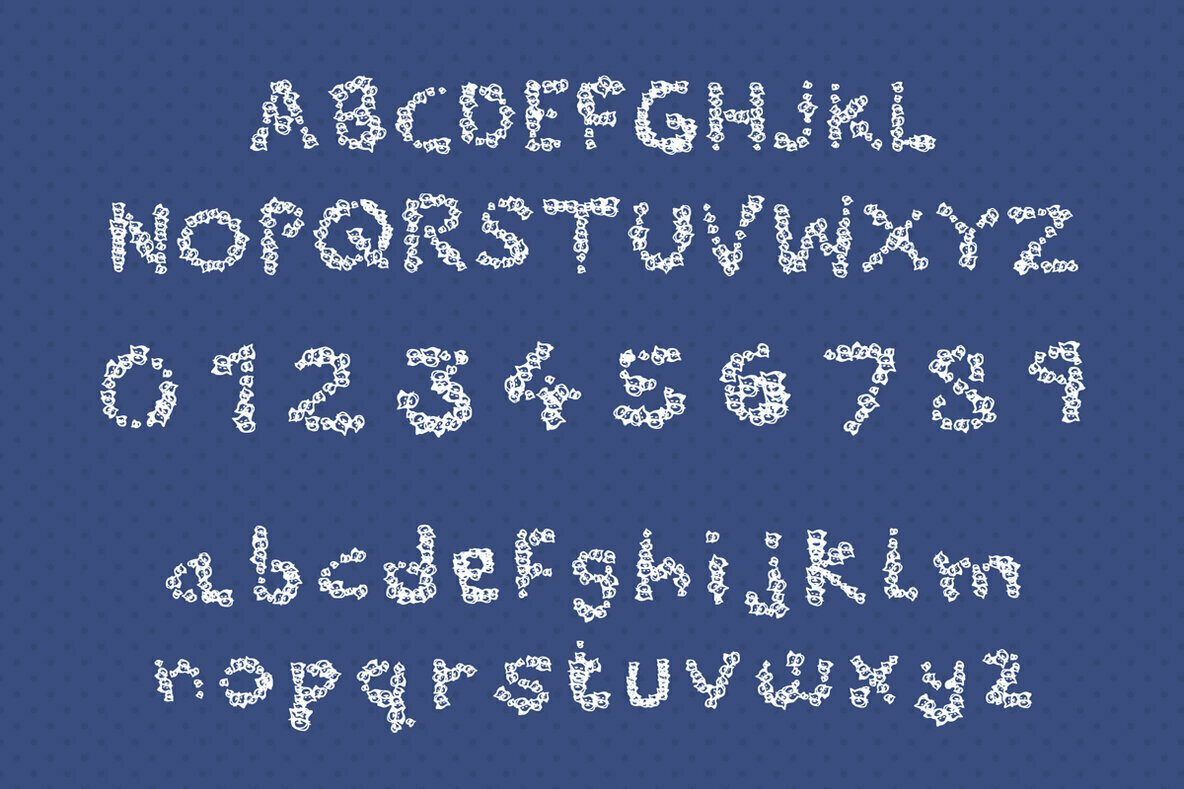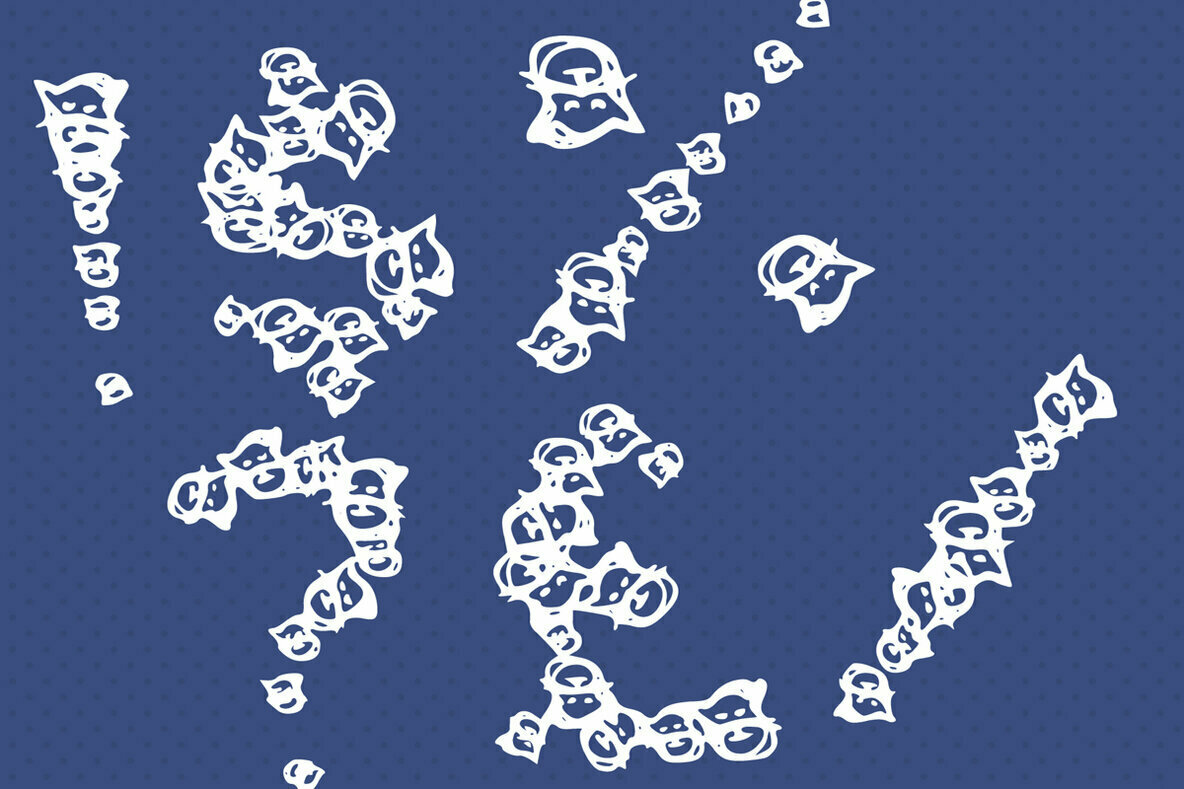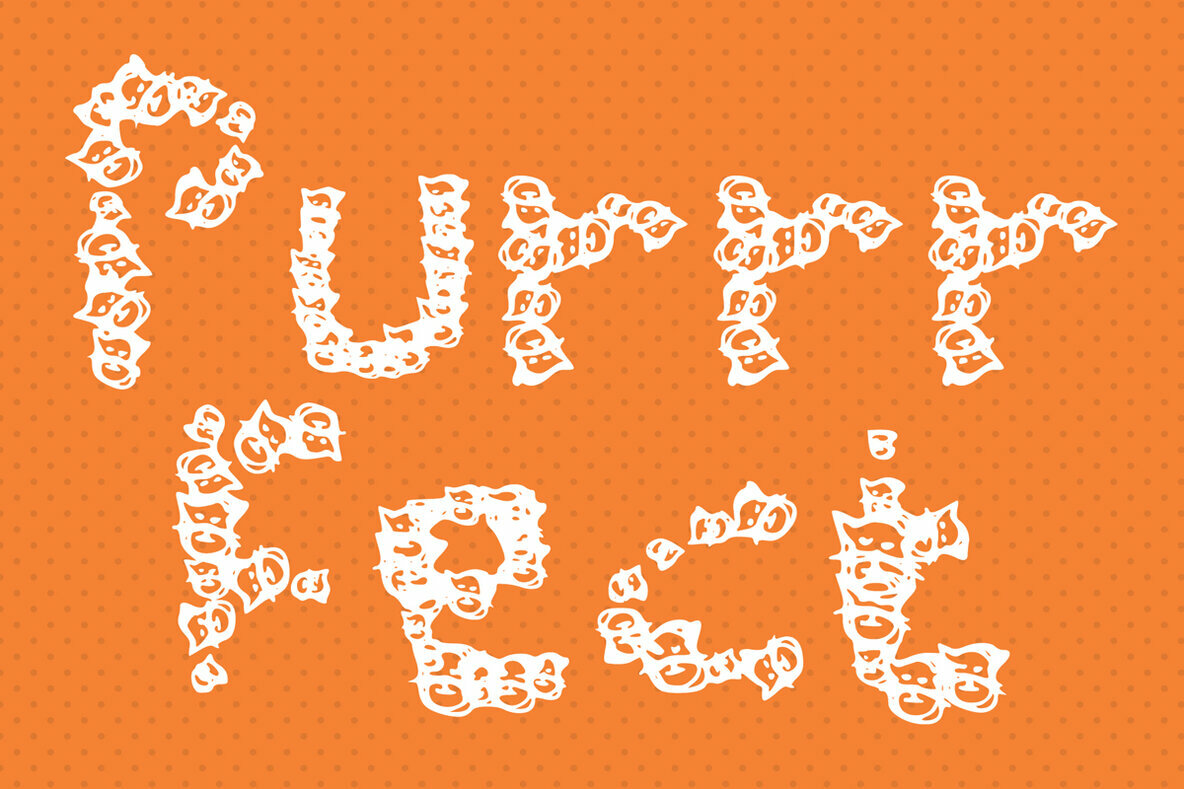
Cat Font
Cat
Cat is a fun, casual and crazy display font. Each letter is made out of hand drawn cute cat faces, just peeer-fect for all cat and animal lovers! Take your crafting projects to the next level with this unique feline touch!